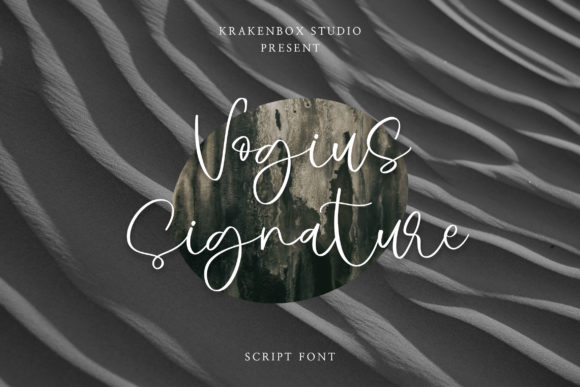
Unleash the Allure of Vogius Signature: Where Elegance Meets Style
In a digital world teeming with visual clutter, your brand's identity yearns for a touch of distinction, an element that whispers elegance and captivating charm. Enter Vogius Signature, a script font that dances across the screen with its bewitching curves and alluring inky flow.
Step into the realm of sophistication and grace as Vogius Signature weaves its magic, transforming your designs into breathtaking masterpieces. With its modern yet timeless appeal, this font captures the essence of style and refinement, leaving an indelible mark on your audience's hearts.
Picture your business cards adorned with the exquisite strokes of Vogius Signature, each letter a testament to your impeccable taste and attention to detail. The font's innate elegance elevates your branding, setting you apart from the mundane and propelling your business to new heights of success.
But Vogius Signature's allure extends far beyond business cards. Its versatility shines in album covers, logos, and magazines, adding a touch of class and sophistication to every creative endeavor. Whether you seek to craft a timeless wedding invitation or design a captivating social media post, Vogius Signature is your font of choice.
Immerse yourself in the world of fashion and let Vogius Signature be your muse. Its graceful lines and sweeping strokes capture the essence of haute couture, bringing a touch of luxury to your designs. From elegant gowns to chic accessories, Vogius Signature transforms your creations into works of art.
Experience the transformative power of Vogius Signature and witness the exquisite beauty it brings to your designs. Its timeless appeal and unwavering elegance will leave your audience spellbound, turning your brand into an unforgettable icon of distinction. Embrace the allure of Vogius Signature and unlock the door to a world of sophistication and captivating charm.